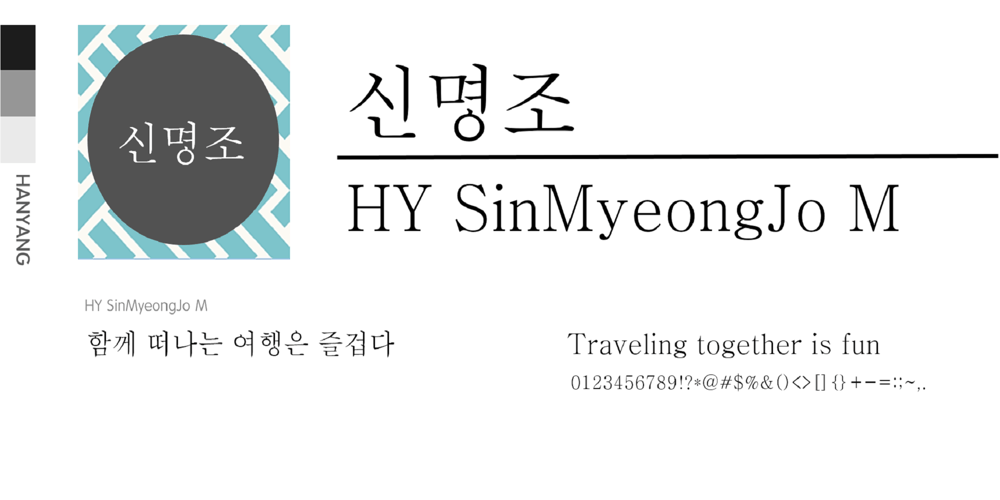
HY SinMyeongJo M Font Family was designed by font hy and published by HY Font. HY SinMyeongJo M contains 1 styles and family package options. The elegant and sophisticated design of HY Shin Myeongjo font is suitable for body text in magazines, newspapers, books, etc.It can be used in the body text of a web page.It has a serious weight and is easy to read.